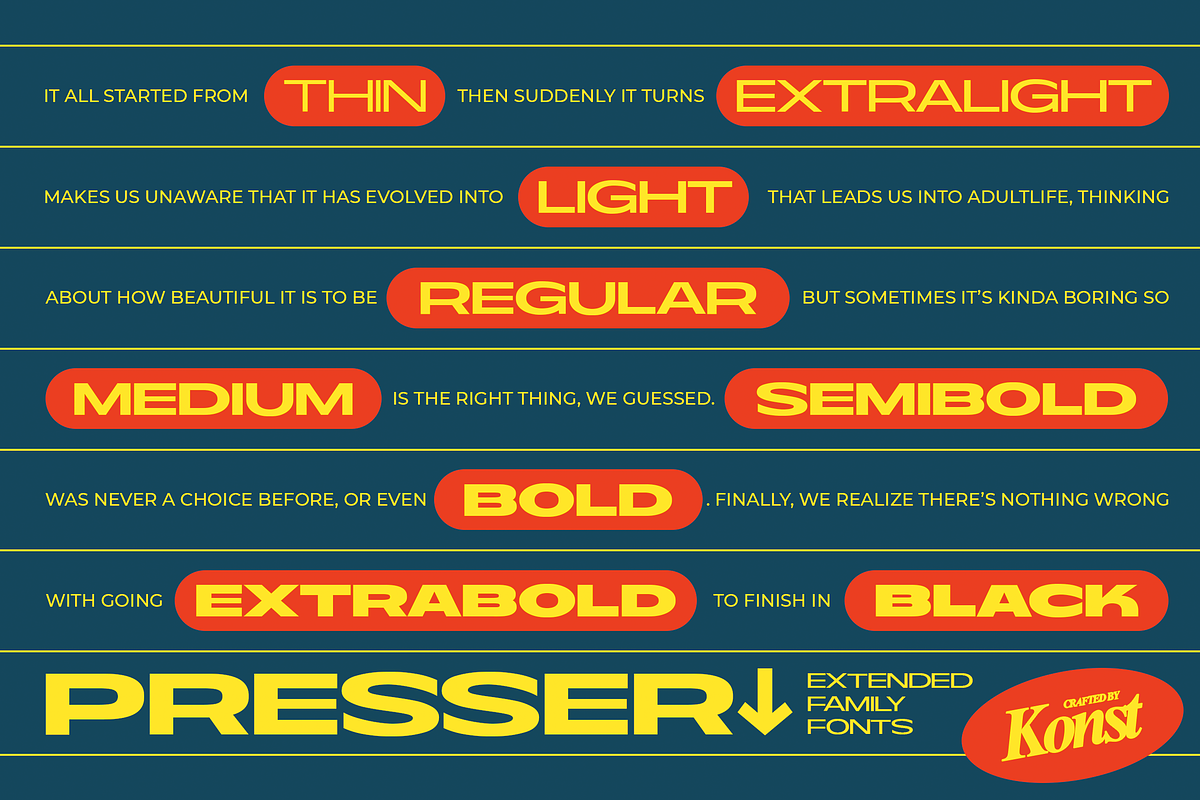
PRESSER - Extended Sans Serif Fonts Free Download
Make a bold, confident statement with the PRESSER - Extended Sans Serif Fonts Free Download — a powerful typeface built for impact. Featuring wide letterforms, strong geometry, and clean lines, PRESSER is ideal for headlines, posters, branding, tech projects, and modern websites that need a commanding presence.
Its extended design gives your typography extra breathing room while still maintaining clarity and structure. Whether you’re creating a cutting-edge startup identity or a high-energy product launch campaign, PRESSER delivers the perfect balance of professionalism and visual strength.